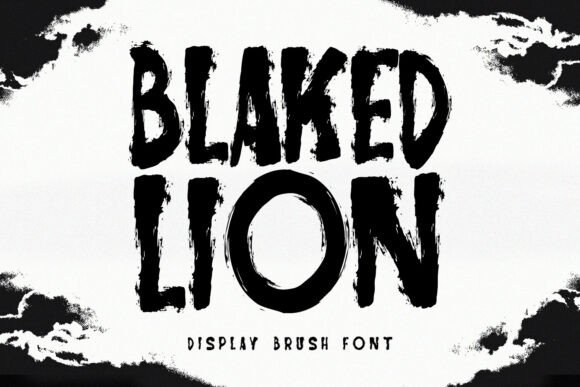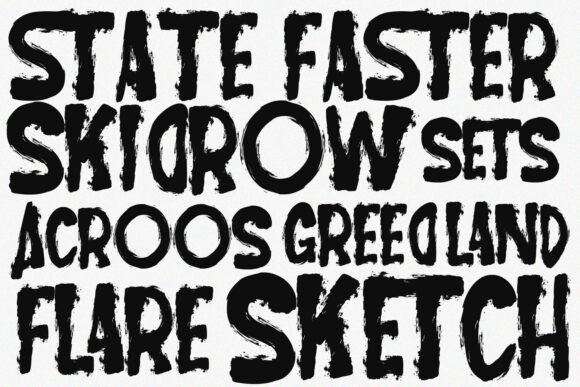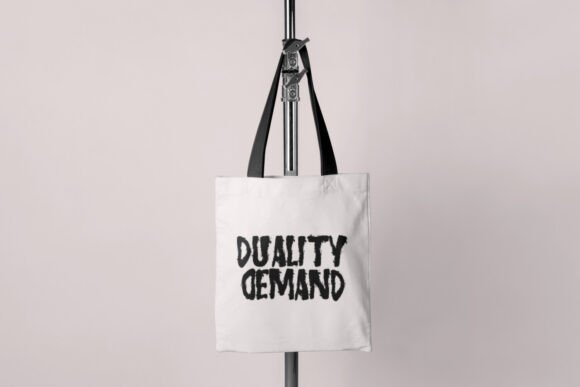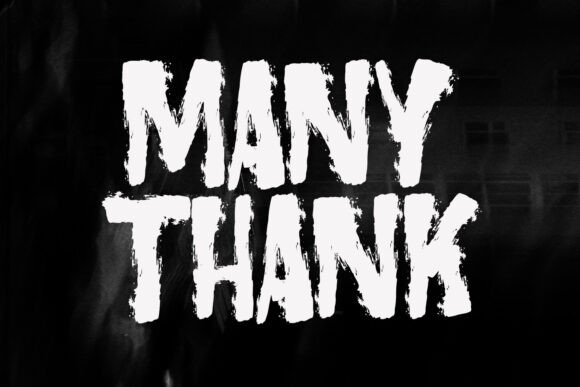
Blaked Lion Font: Bold Display Font for Edgy Logo Design
About the Blaked Lion Font
The wait is over! The incredible Blaked Lion Font is now available for your design toolkit. Blaked Lion is a fierce and rugged display font with a raw, hand-painted brush texture. Its bold strokes and distressed edges make it perfect for edgy designs, including posters, album covers, sports branding, and urban-style artwork. This font commands attention and adds a rebellious, energetic vibe to any project.
Blaked Lion excels in large-scale applications such as headlines, logos, and short impactful phrases. Its strong visual presence makes it unsuitable for body text or UI elements where readability is paramount. Avoid using it for lengthy paragraphs; the distressed texture can hinder legibility.
This font’s rebellious and energetic personality pairs well with clean sans-serif fonts like Montserrat or Open Sans for a balanced contrast. For a more rugged aesthetic, consider pairing it with a rough-hewn serif like Playfair Display or a geometric sans-serif like Roboto Slab. Avoid pairing it with delicate script fonts, as this would clash with its bold, raw character.
Blaked Lion is ideally suited for brands seeking to project a bold, powerful, and slightly rebellious image. Think streetwear apparel, rock bands, or anything requiring a strong, attention-grabbing visual.
Blaked Lion Font Usage Examples
Blaked Lion Font Example